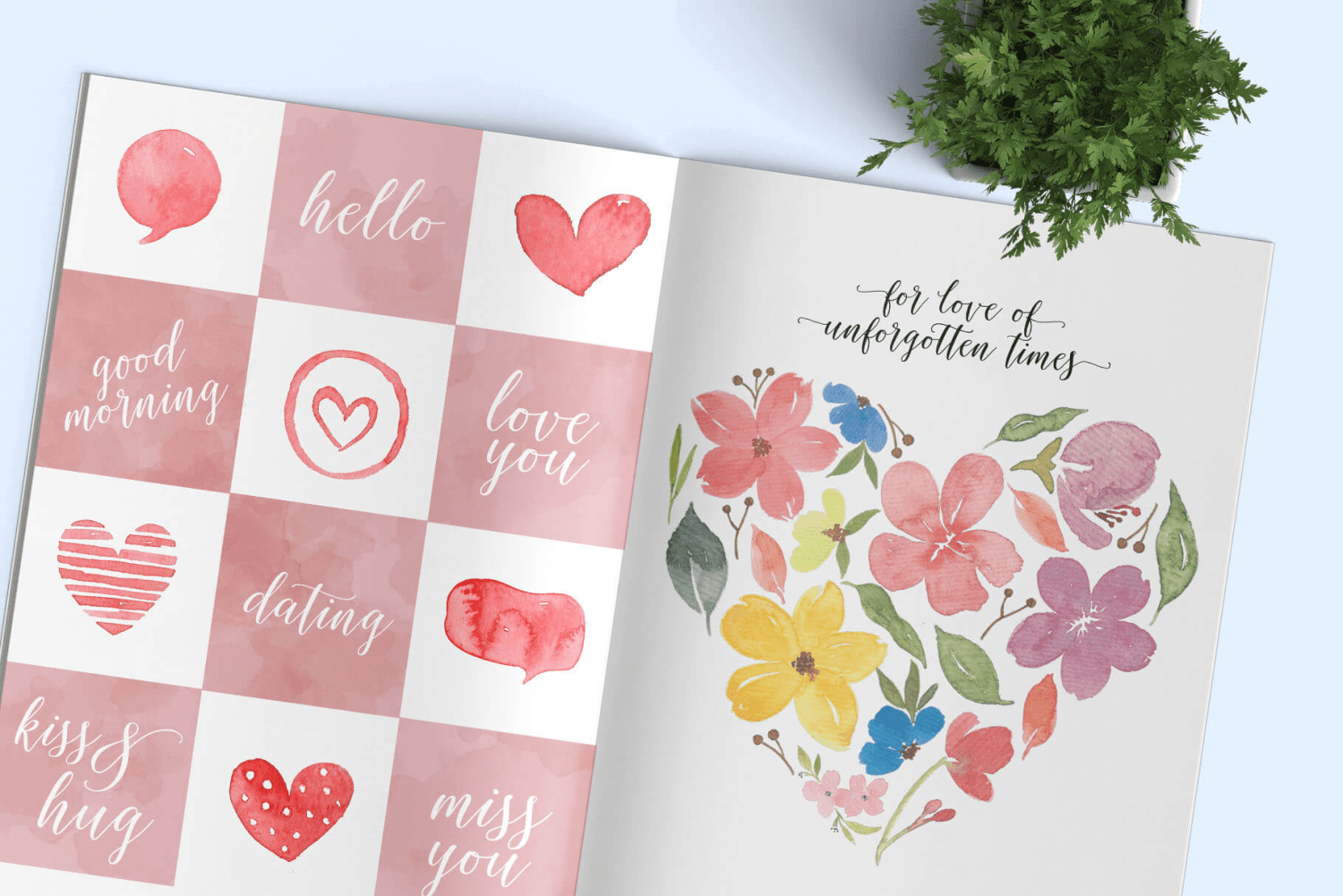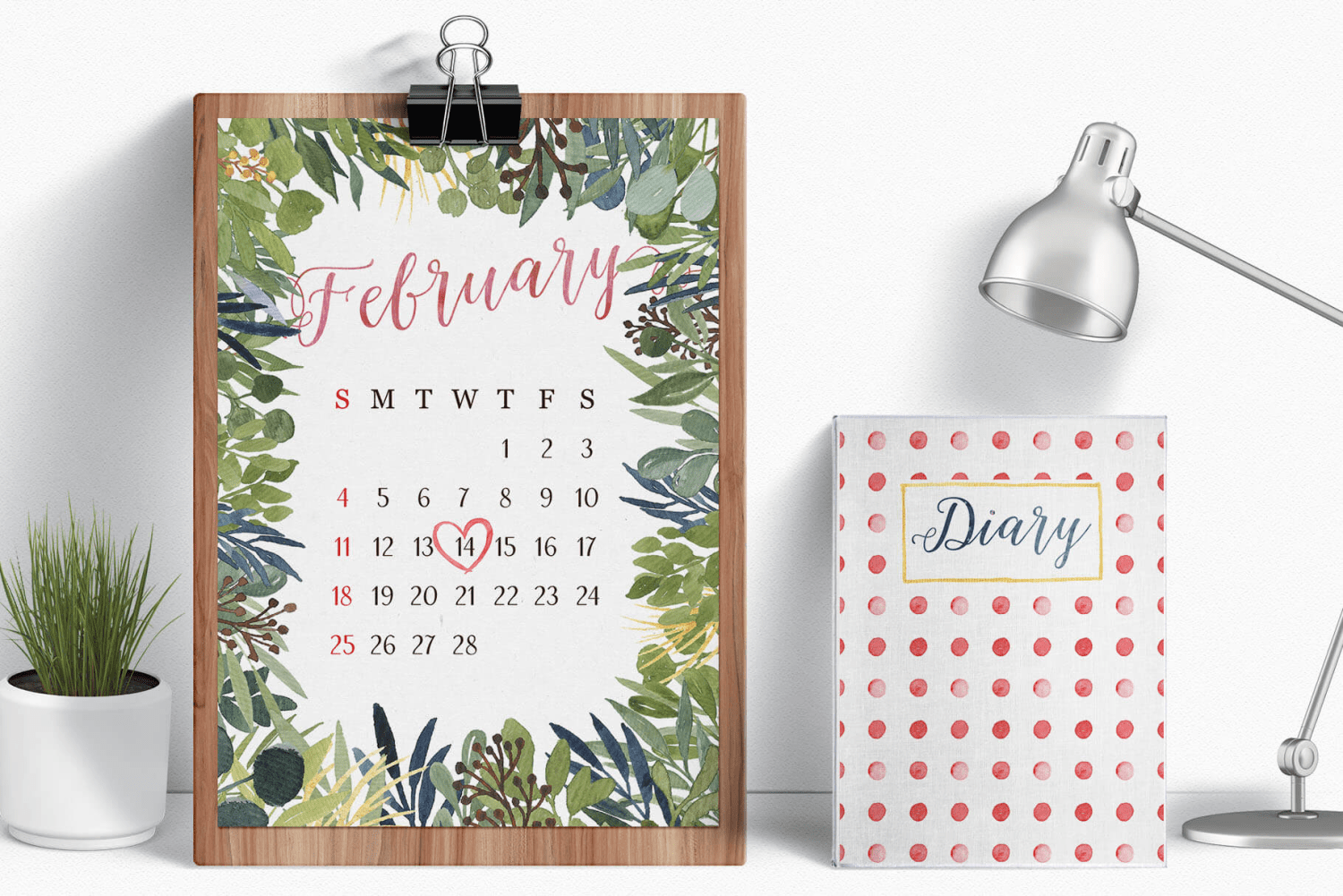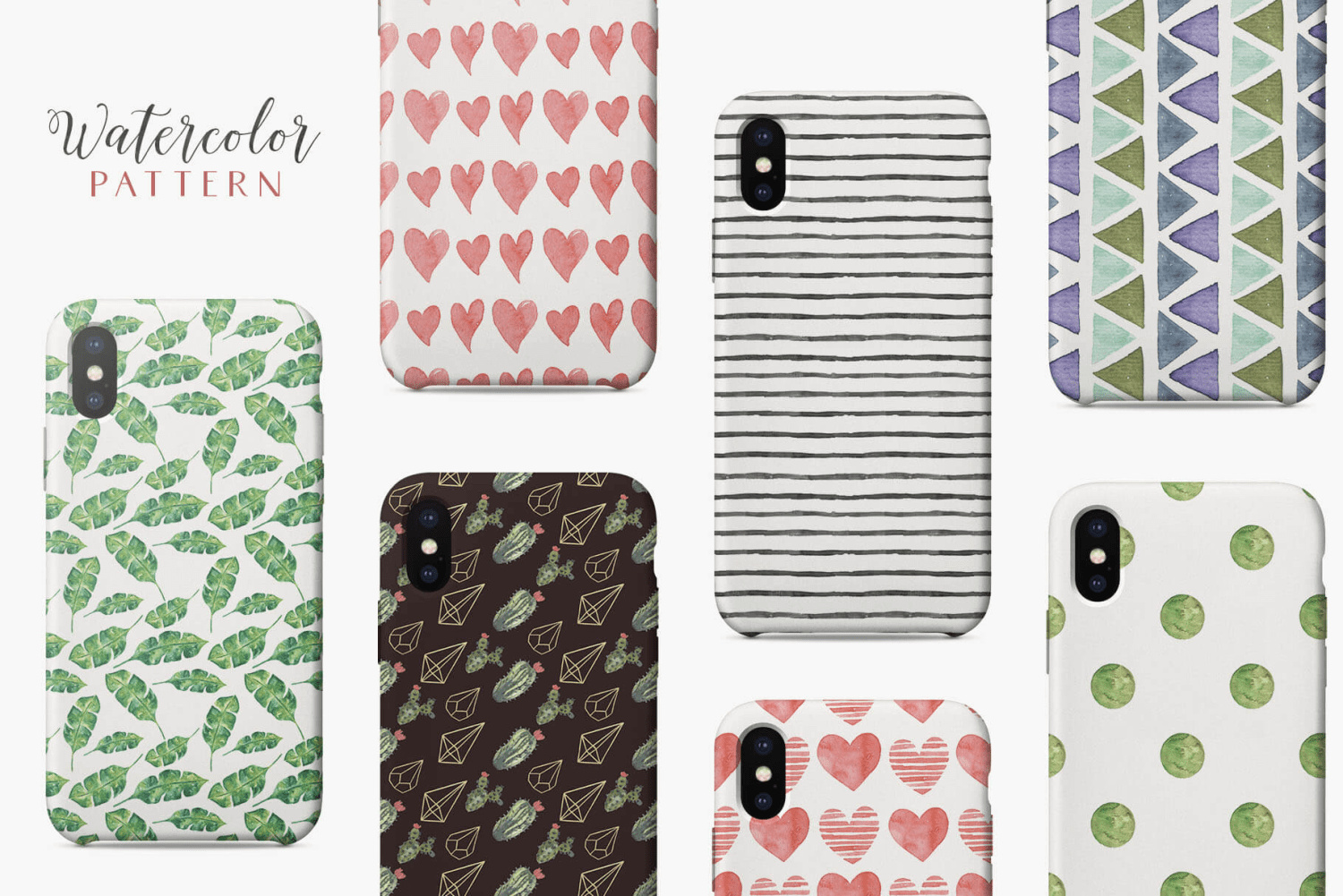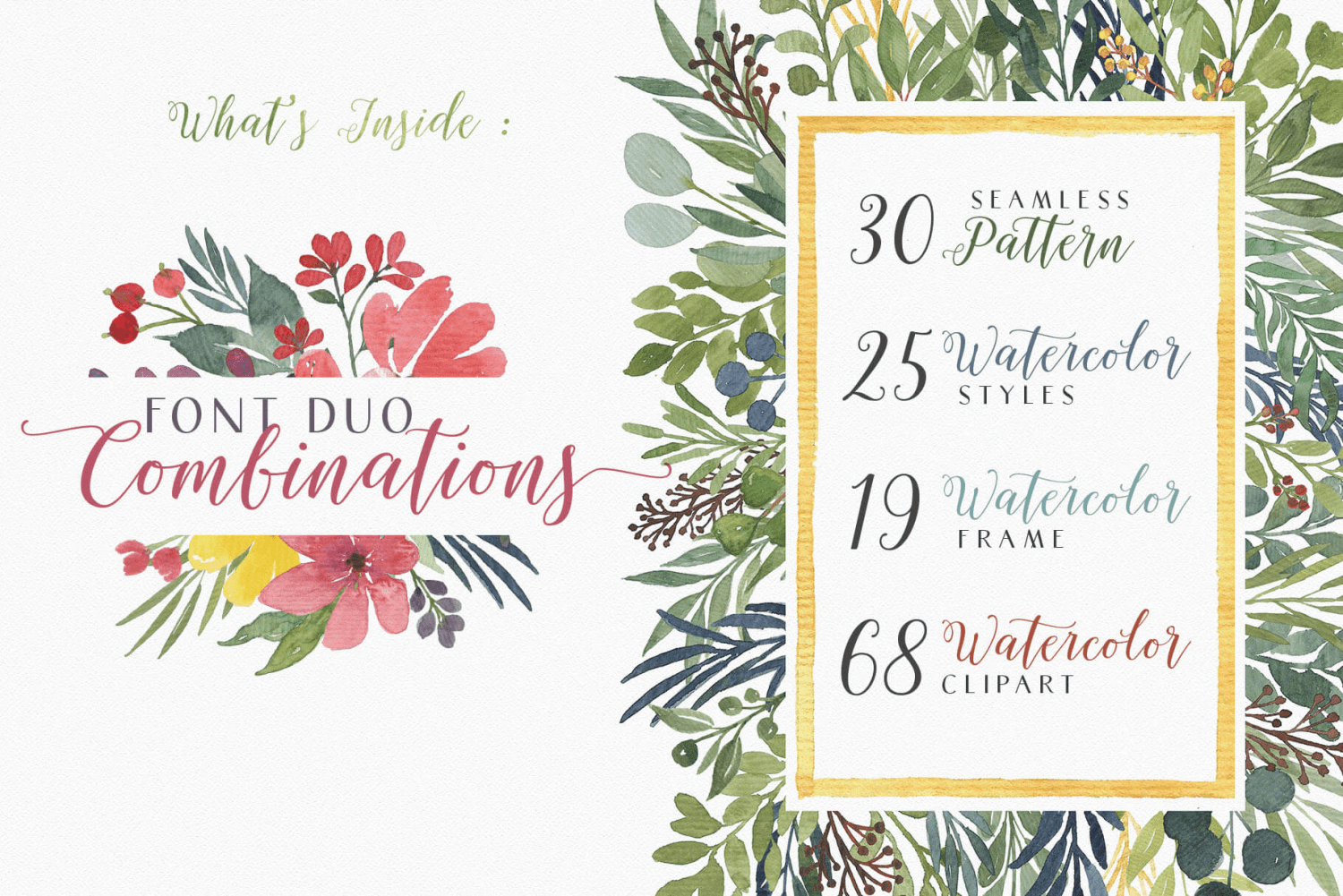
About Ellie Bellie
Ellie Bellie is an advanced Font Duo that combines Modern Calligraphy Script and Sans Serif Fonts. Combining both fonts made it easier to create something on typing design content such as headlines and sub-headlines, logos, digital lettering, cards, branding,…